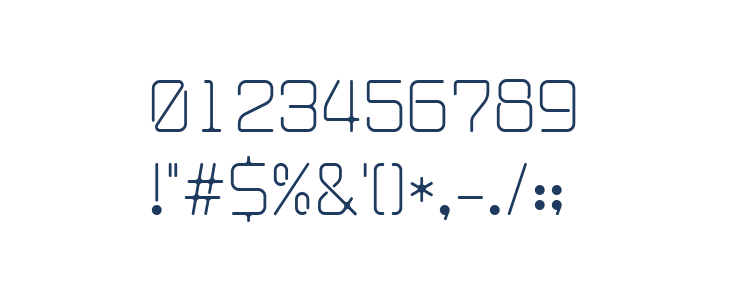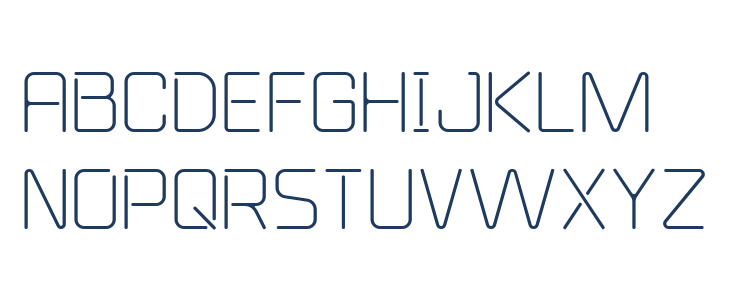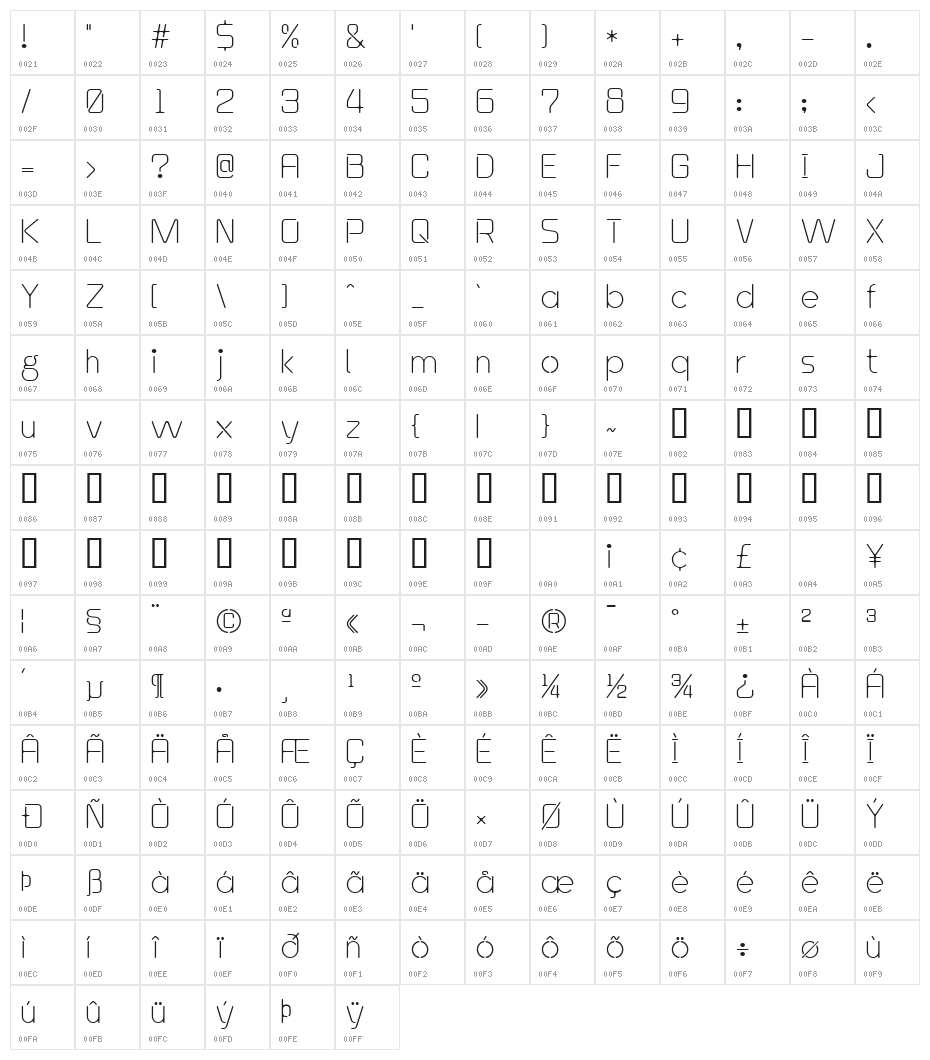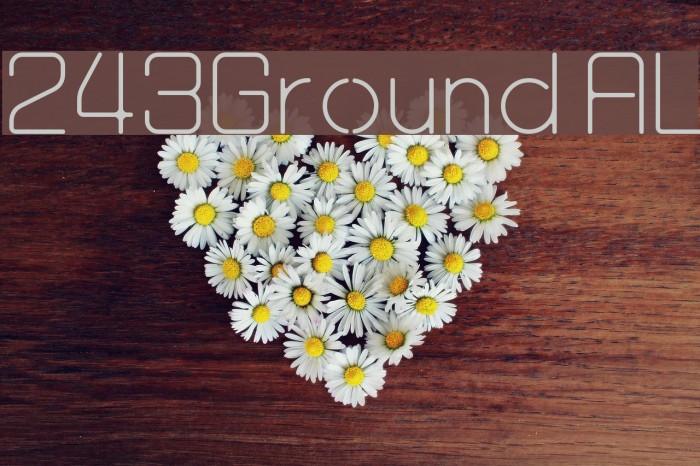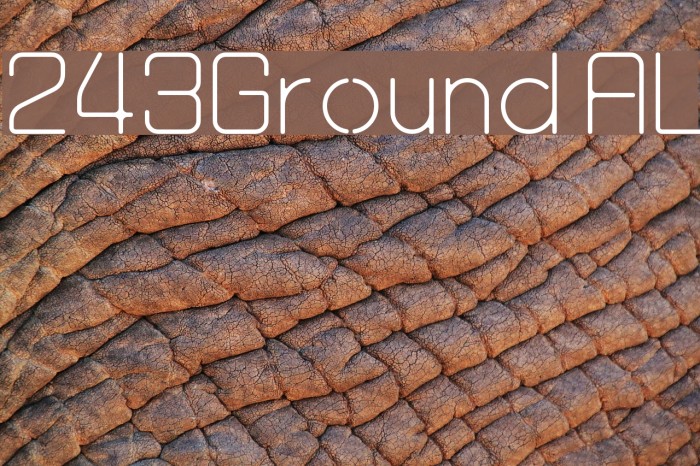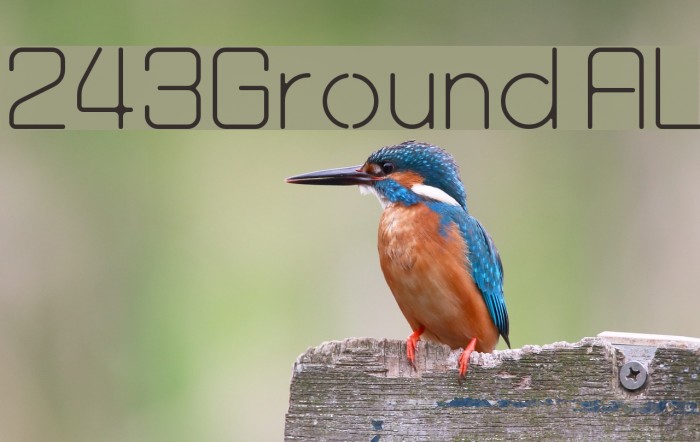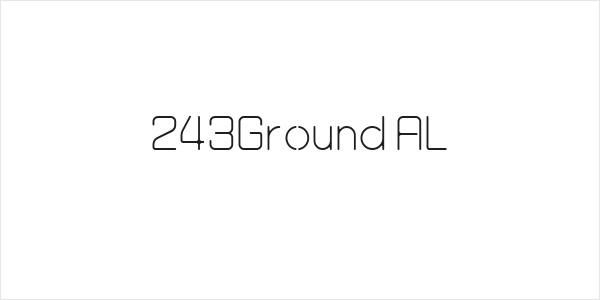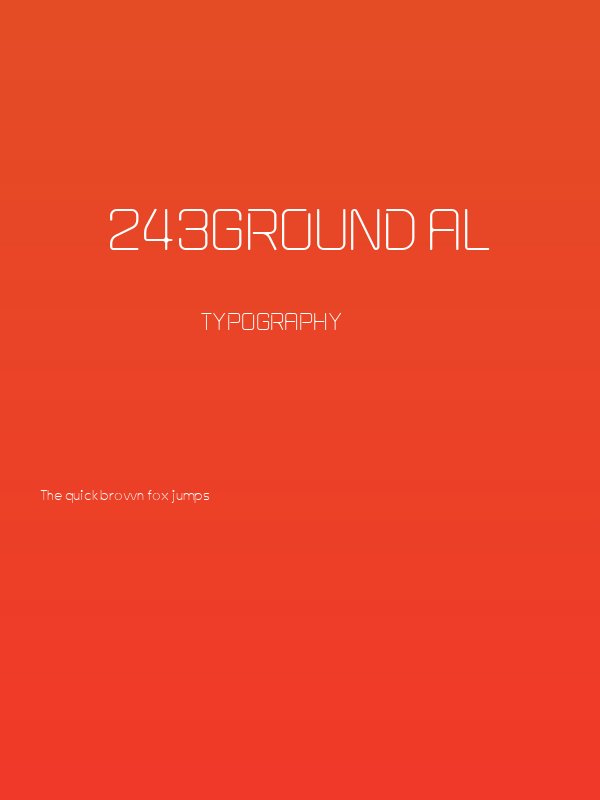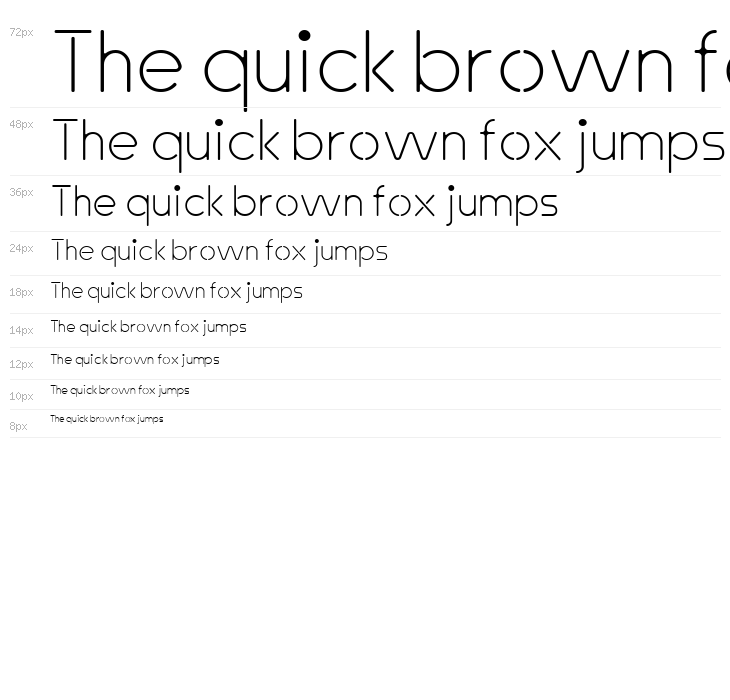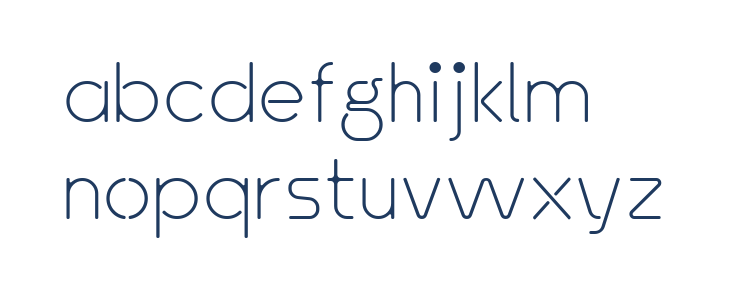
243Ground AL Font
243Ground AL Description
This font features a modern, geometric design with clean lines and a minimalist aesthetic. The characters are constructed with a uniform stroke width, giving it a sleek and contemporary look. The uppercase letters are tall and narrow, while the lowercase letters maintain a consistent height, contributing to a cohesive appearance. The numerals are distinct and easy to read, with a similar geometric style. Special characters are well-integrated, maintaining the overall design consistency. This font is ideal for projects that require a modern and professional touch.
| Use Case | Logos, Headlines, Tech Branding |
| Proposed Projects | Ideal for tech branding, modern web design, and minimalist posters. |